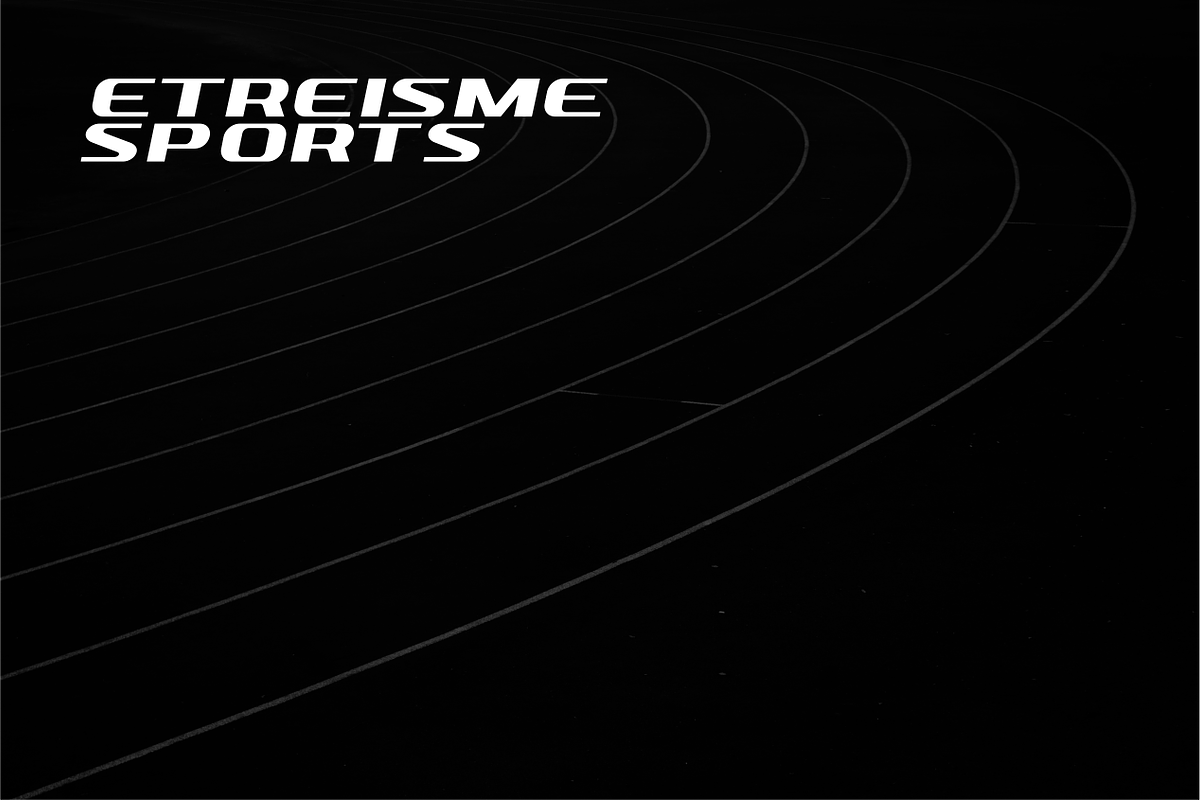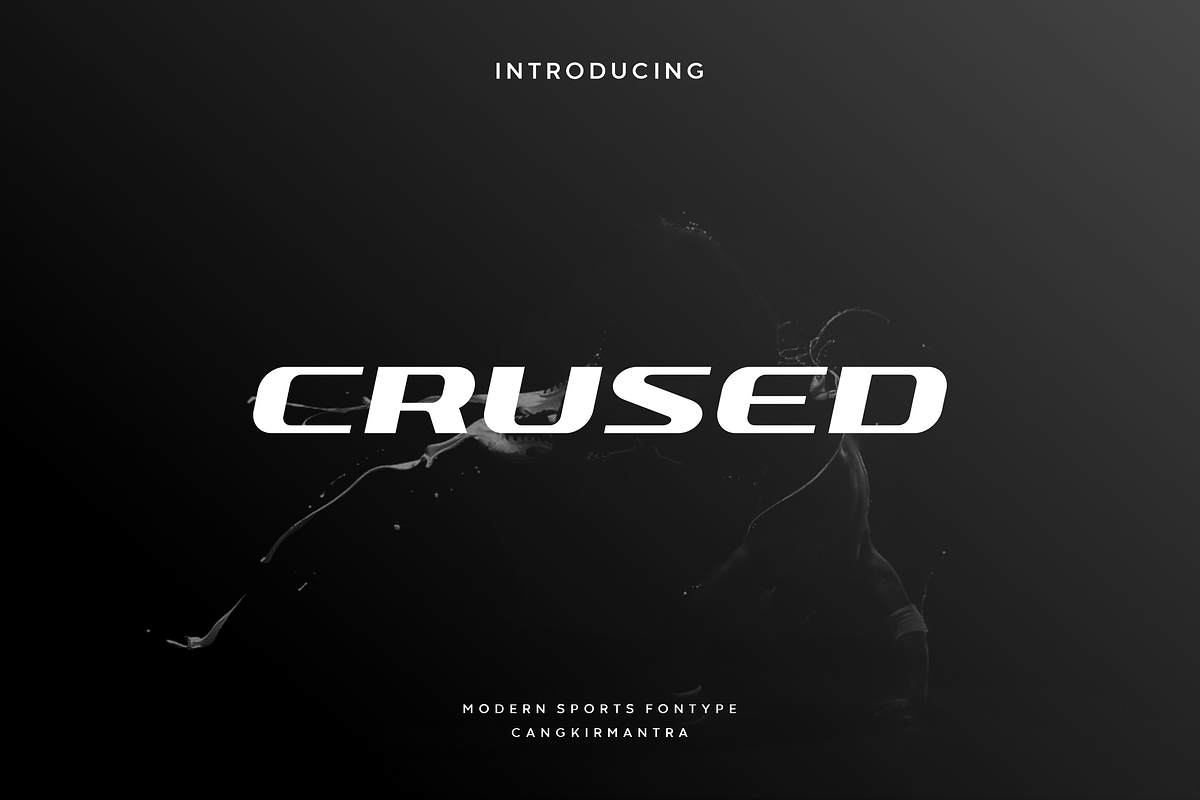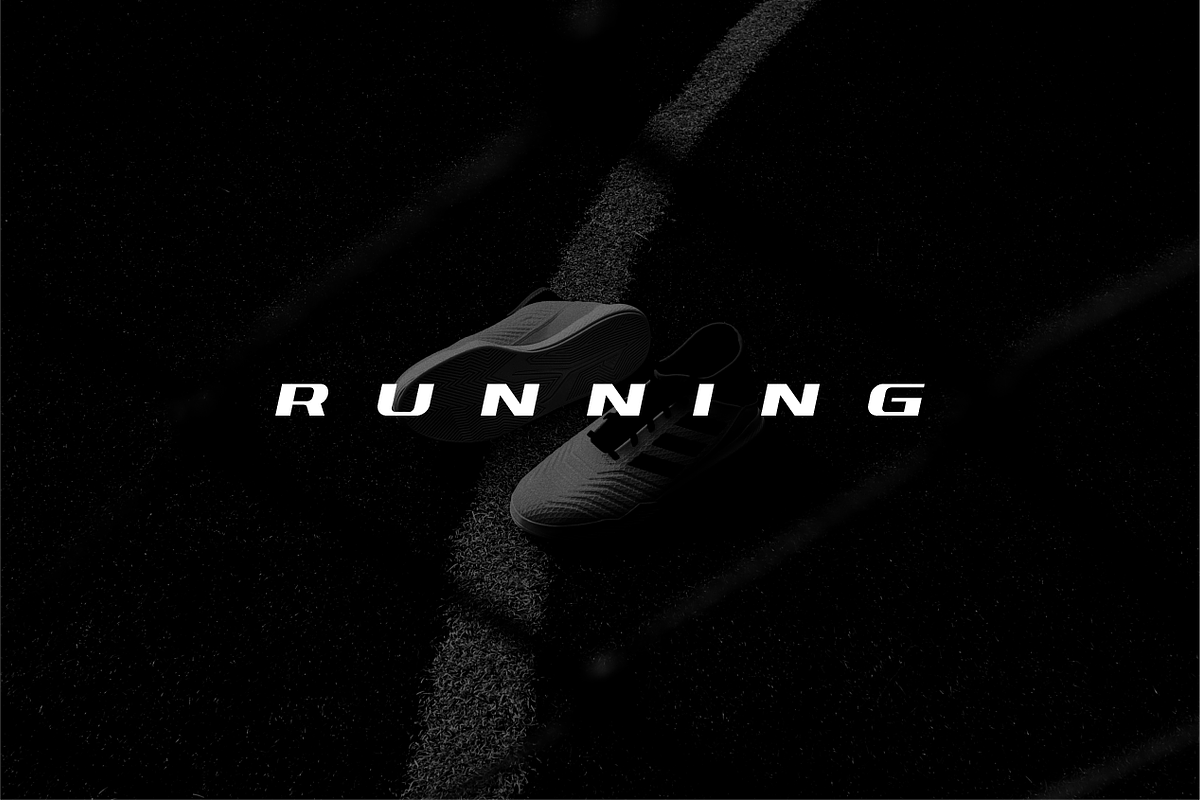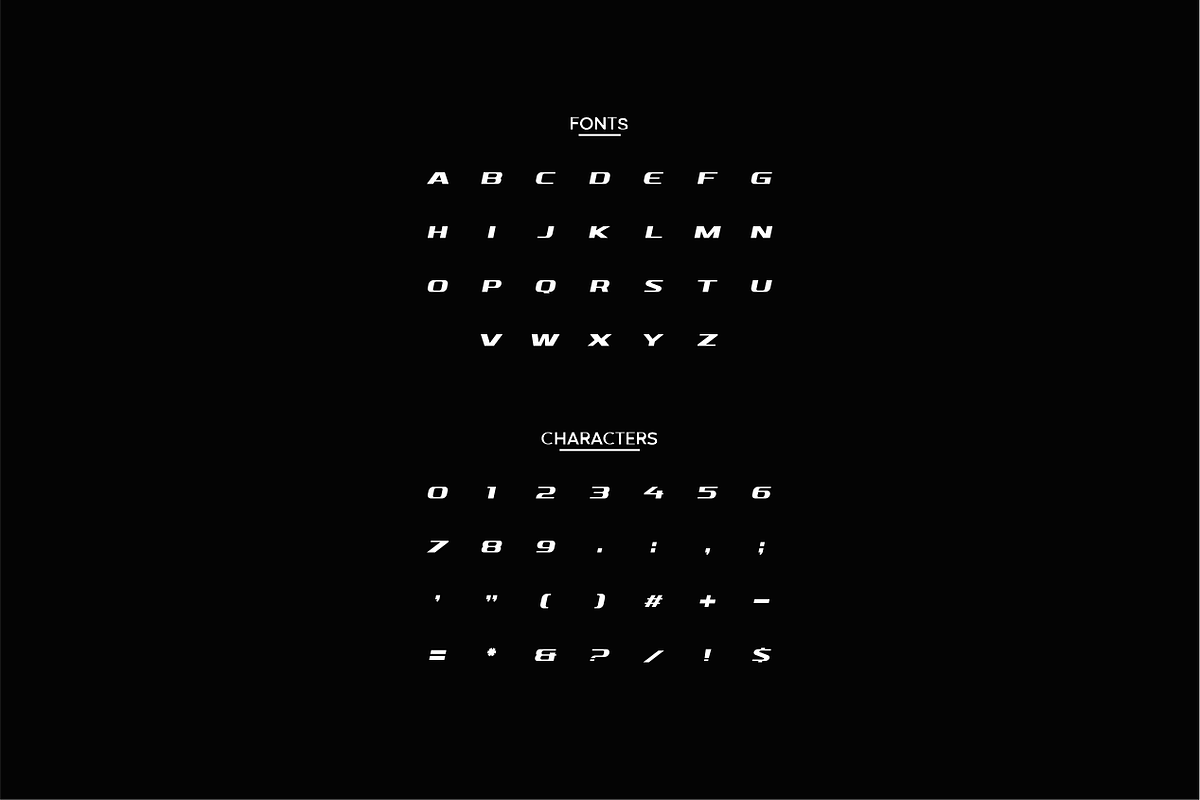
Crused
Revolutionary design with rounded sharp corners and some slope for dynamic effect. Crused font has a unique charm and easy visual readability, so it's perfect for headlines, whether for sports events, gym or automotive posters, logo or monograms designs, hopefully you'll enjoy the result.